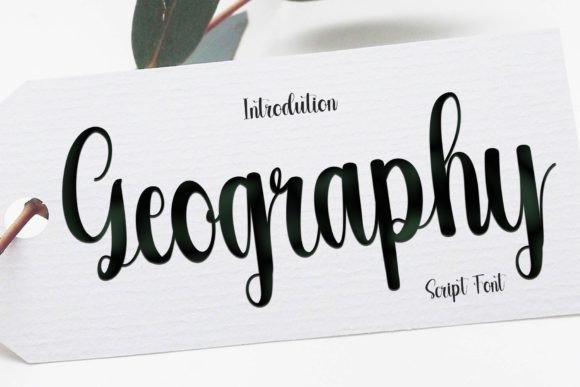
About Geography Font
**Geography Font: Where Style Meets Timeless Elegance**
Introducing the “Geography” font, a stylish handwritten typeface that seamlessly blends a contemporary atmosphere with impeccable form. Inspired by timeless classic calligraphy, this font is a balance of variation and precision, meticulously designed to enhance the beauty of your creative projects.
At the heart of “Geography” is its stylish handwritten script, where each letter is a testament to the fusion of modern flair and timeless elegance. The contemporary atmosphere of the font is evident in every stroke, creating a visual narrative that resonates with sophistication. This font is not merely a typeface; it’s a design element that elevates your projects to a realm of timeless beauty.
Impeccable form defines the essence of “Geography.” The characters are carefully crafted to achieve a perfect balance, ensuring that each letter contributes harmoniously to the overall aesthetic. Whether you’re working on branding materials, invitations, or social media graphics, this font becomes the anchor that enhances the visual appeal of your content.
The versatility of “Geography” shines through in its ability to adapt to various design contexts. Picture it gracing the pages of a contemporary magazine, adding a touch of elegance to a wedding invitation, or becoming the signature font for a high-end brand. This font becomes the stylistic choice that amplifies the impact of your creative endeavors.
The contemporary flair and timeless elegance of “Geography” are not just confined to digital spaces. Imagine it enhancing the beauty of physical products like packaging, merchandise, or even handwritten notes. This font transcends the boundaries of medium, becoming a tool that brings a touch of sophistication to every aspect of your design.
In conclusion, “Geography” is not just a font; it’s a design companion that marries style with timeless elegance. Embrace it, and watch as your projects unfold into visually stunning expressions of contemporary chic. With “Geography,” every letter becomes a brushstroke in the canvas of elegance, leaving an indelible mark of sophistication on your creative journey.